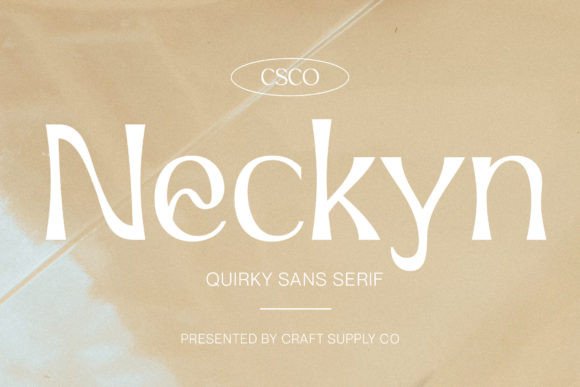
Welcome to the realm of uniqueness, where fonts take on a life of their own, captivating your senses with their playful personalities. Brace yourself for the arrival of Neckyn, the Quirky Sans Serif typeface that's ready to shake up your creative world and leave a lasting impression on your audience.
Neckyn is more than just a font; it's an expression of individuality, a celebration of unconventional beauty, and a gateway to extraordinary designs. With its playful curves and unexpected shapes, Neckyn adds a dash of whimsy and charm to any project, leaving your audience intrigued and delighted.
Whether you're crafting heartfelt greeting cards, eye-catching packaging, or establishing a brand identity that exudes personality, Neckyn is your perfect companion. Unleash your creativity and watch as your designs come alive, infused with a unique character that sets them apart from the ordinary.
Dive into a world of limitless possibilities with Neckyn. Let your imagination soar as you create posters that demand attention, logos that speak volumes, and digital content that resonates with your audience. This typeface is your secret weapon, transforming the mundane into the mesmerizing.
Join the creative revolution and embrace the quirkiness of Neckyn. Say goodbye to dull designs and hello to projects that burst with personality. Let Neckyn be your guide as you embark on a journey to create designs that are as unique as you are.